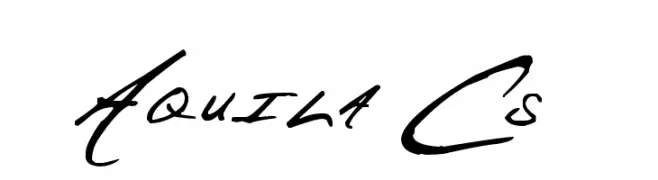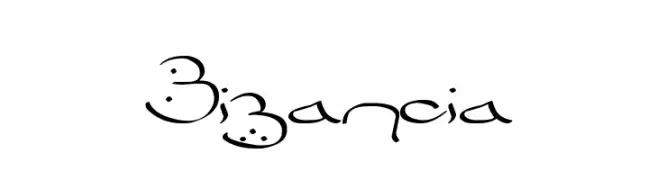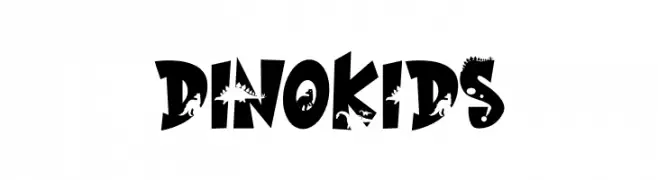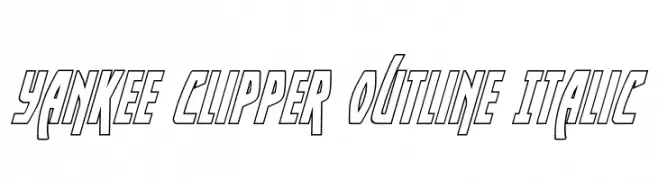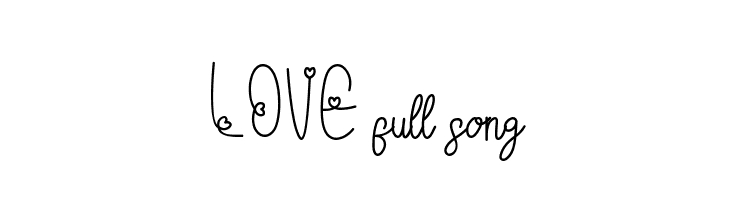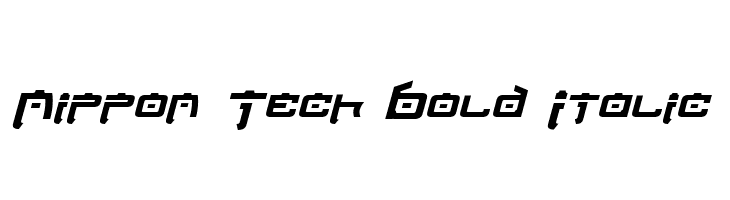
A dynamic handwritten font with fluid, connected strokes and a natural flow.
A playful handwritten font with a casual and friendly style.
An ornate and decorative font with intricate details and flourishes.
A playful, dinosaur-themed font with bold, whimsical characters.
A bold, condensed, and italicized font with sharp, angular characters.
A flowing, cursive font with elegant loops and a handwritten style.
A bold, italicized outline font with a dynamic and energetic style.